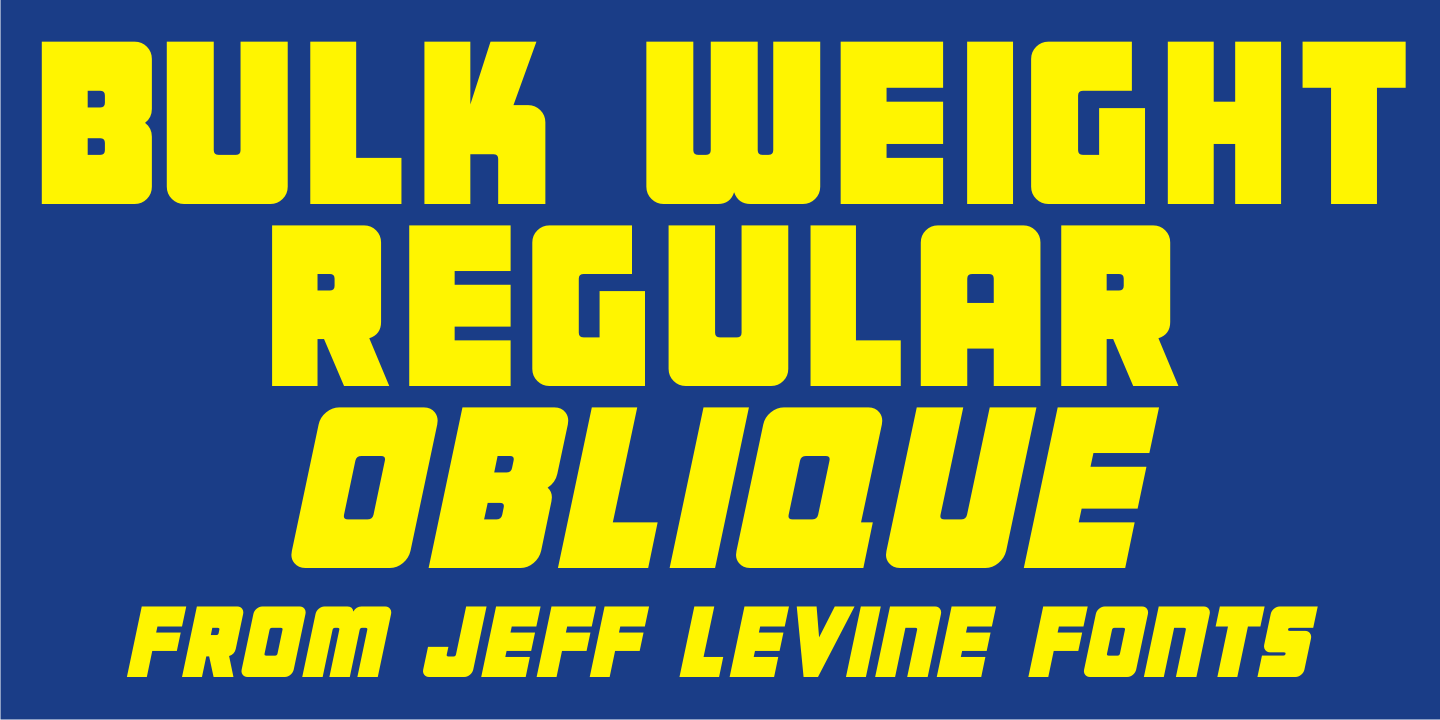
Bulk Weight JNL Font Free Download is a bold, heavy-weight typeface designed to grab attention and make a strong statement. Its thick strokes and solid structure make it perfect for headlines, posters, branding, and packaging that demand impact and readability.
Whether you’re working on sports logos, urban designs, or advertising campaigns, Bulk Weight JNL Font Free Download provides the powerful presence your project needs. Its robust character ensures visibility even from a distance, making it ideal for both print and digital use.